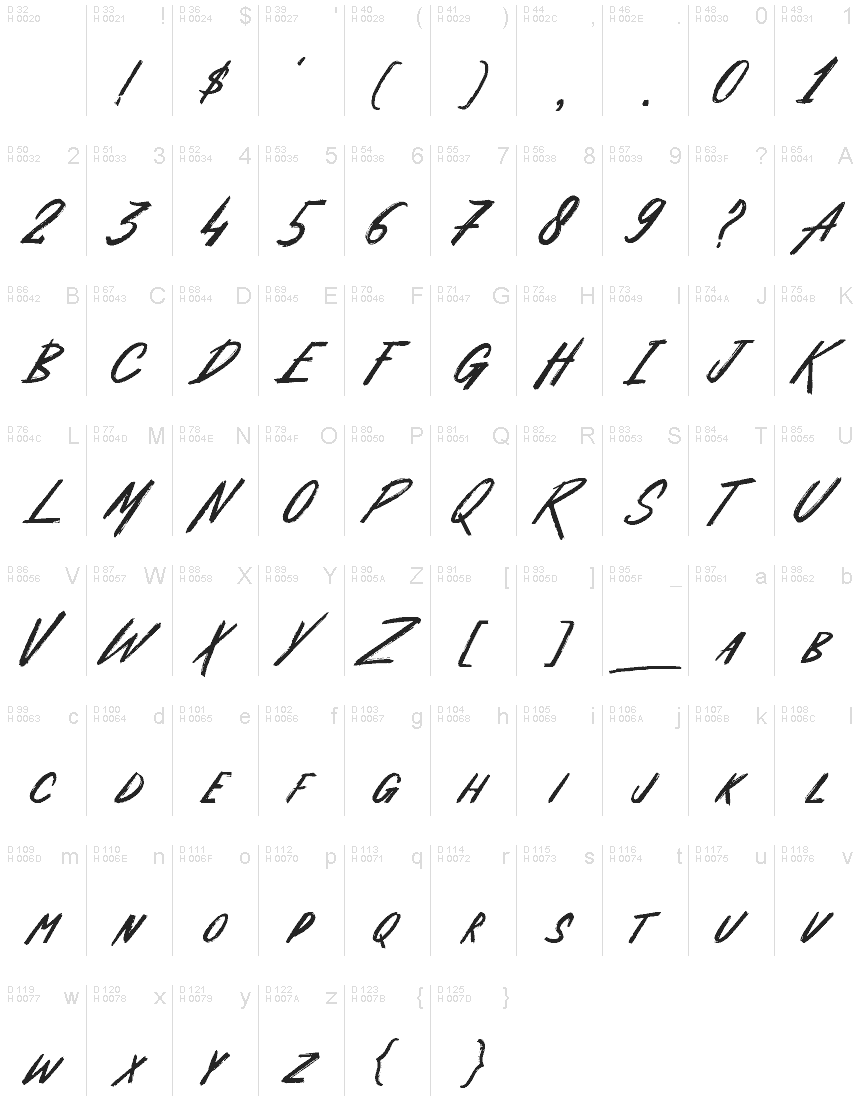
Vegabond Regular
Vegabond font is a condensed brush display typeface focused on conveying an oversized spray-painted look across digital and printed spaces. Designed by Shradha Katiyar, it has a graffiti-like artistic and edgy feel with all characters having been textured individually for maximum uniqueness.
The free handwriting font will fit well into headings, banners, book covers, poster designs, murals, album art design, magazine spreads and more. Use Vegabond in logos it will instantly make your brand appear trendy so you can reach out to new audiences.